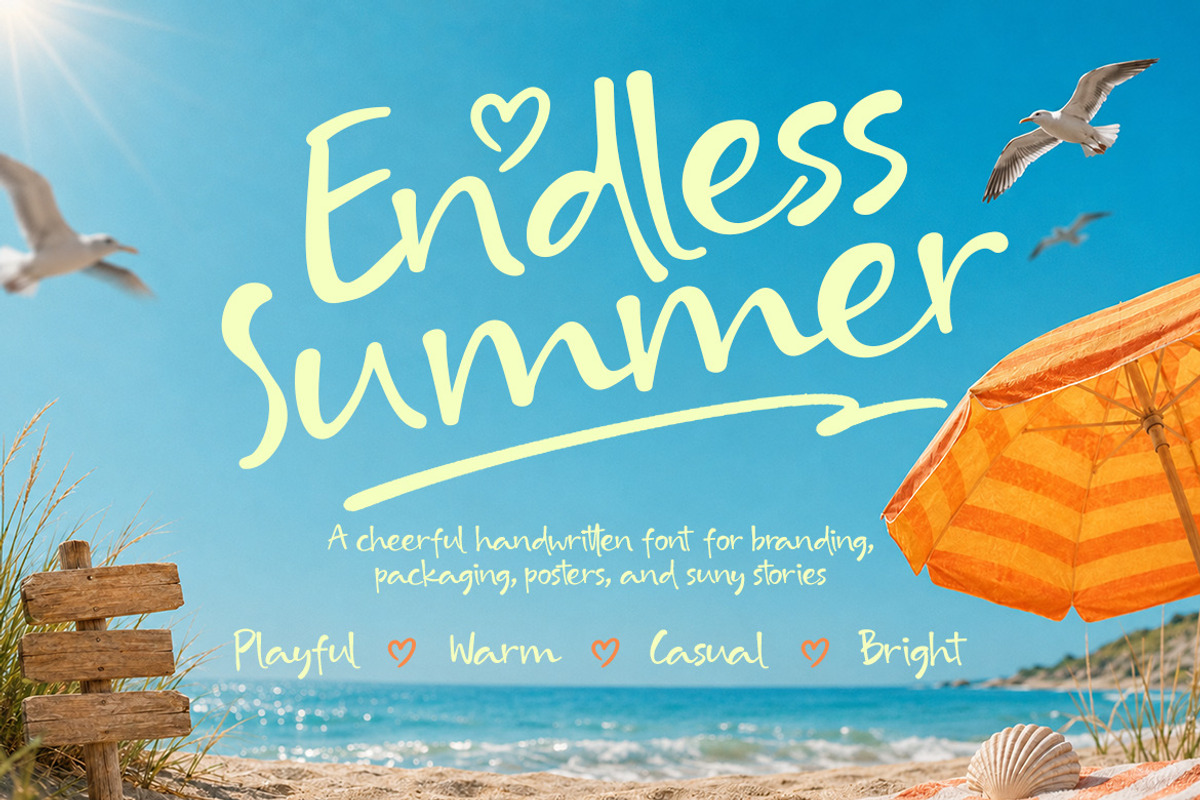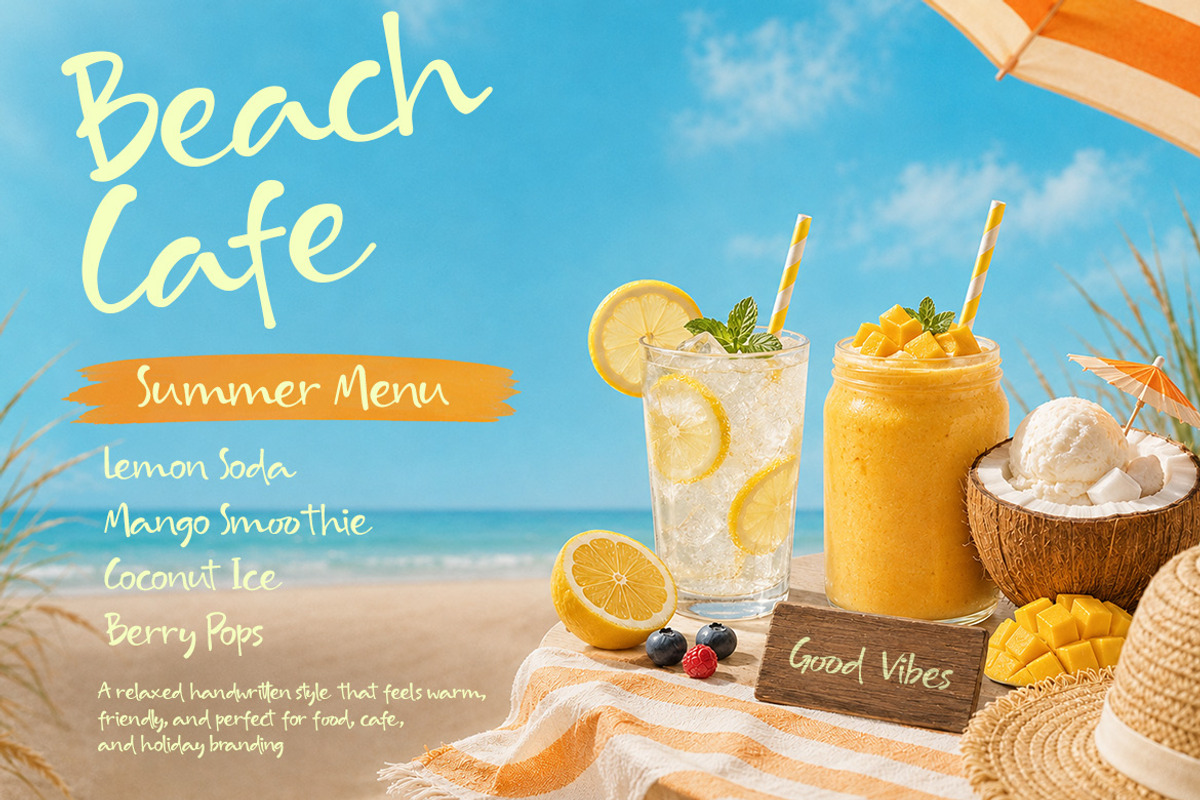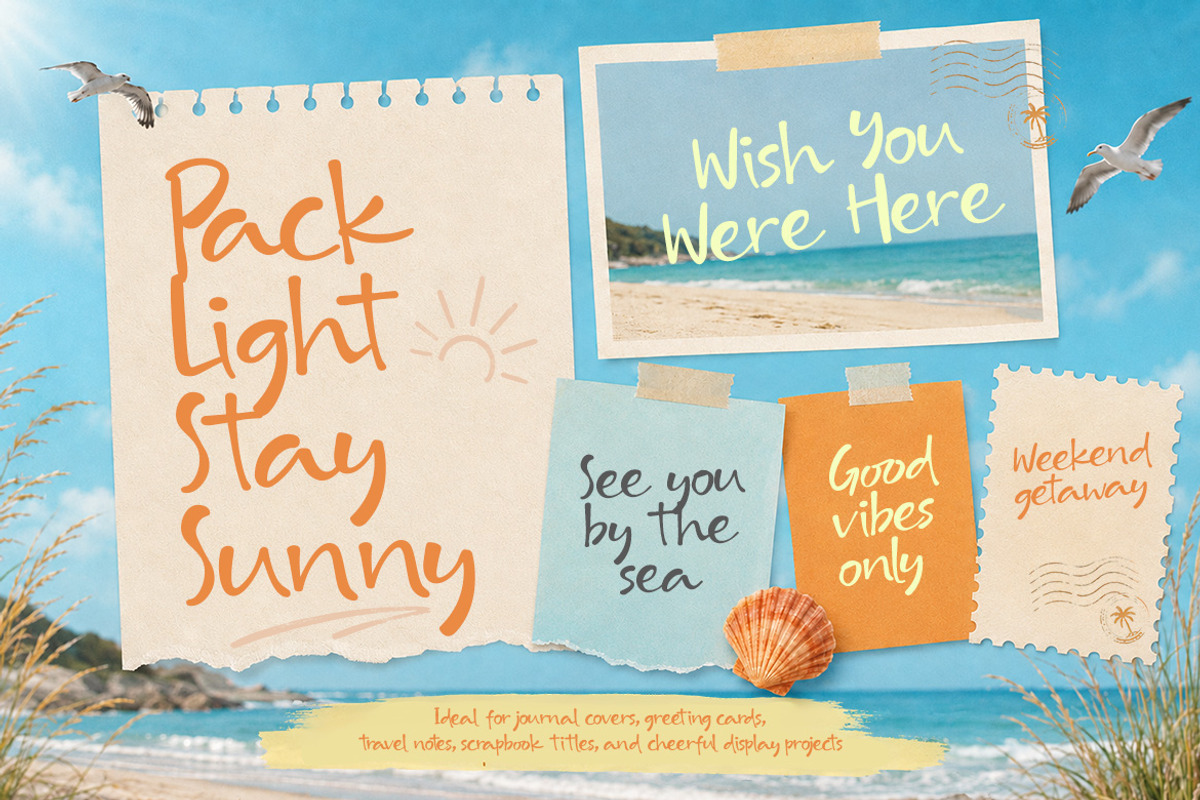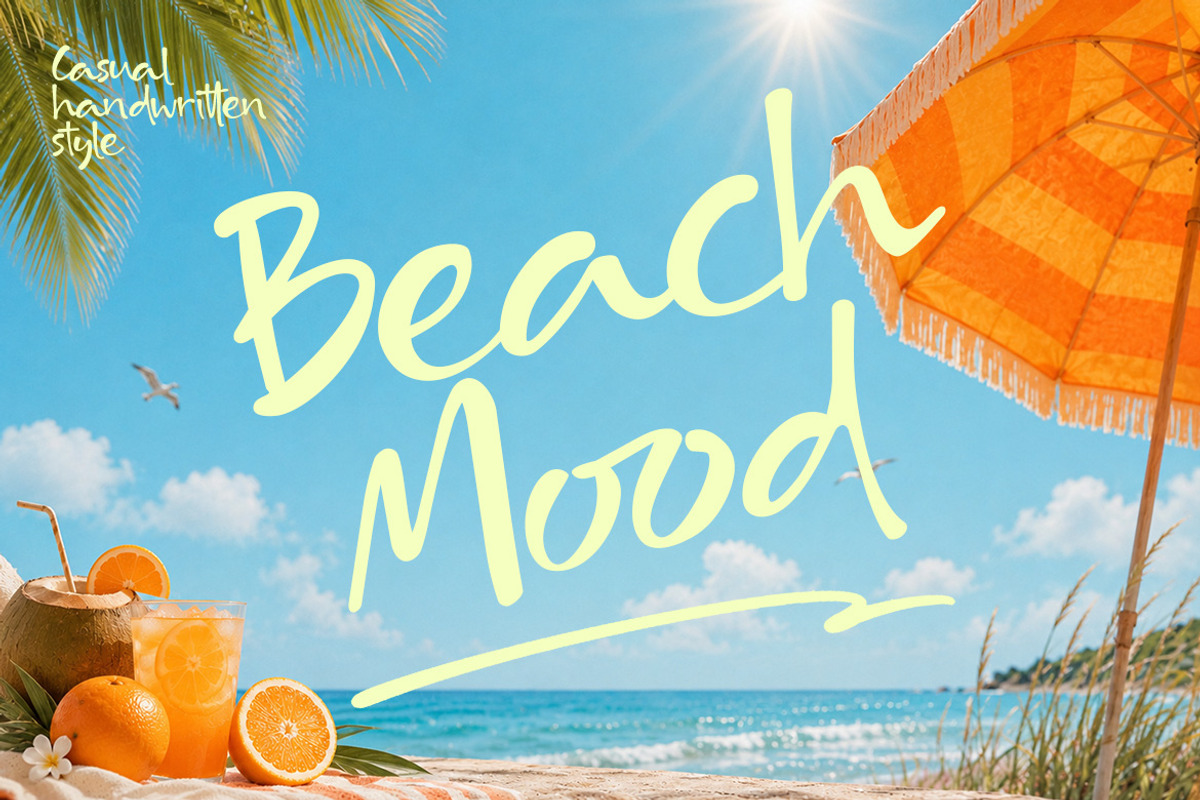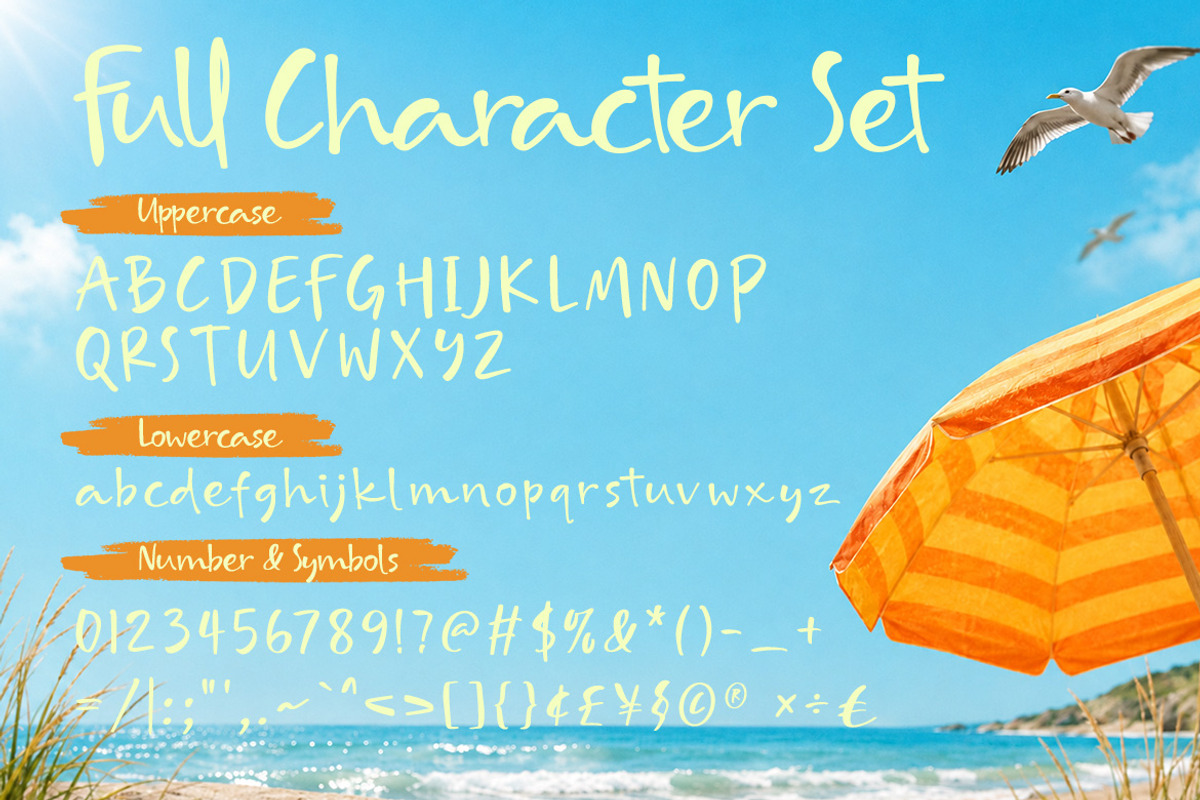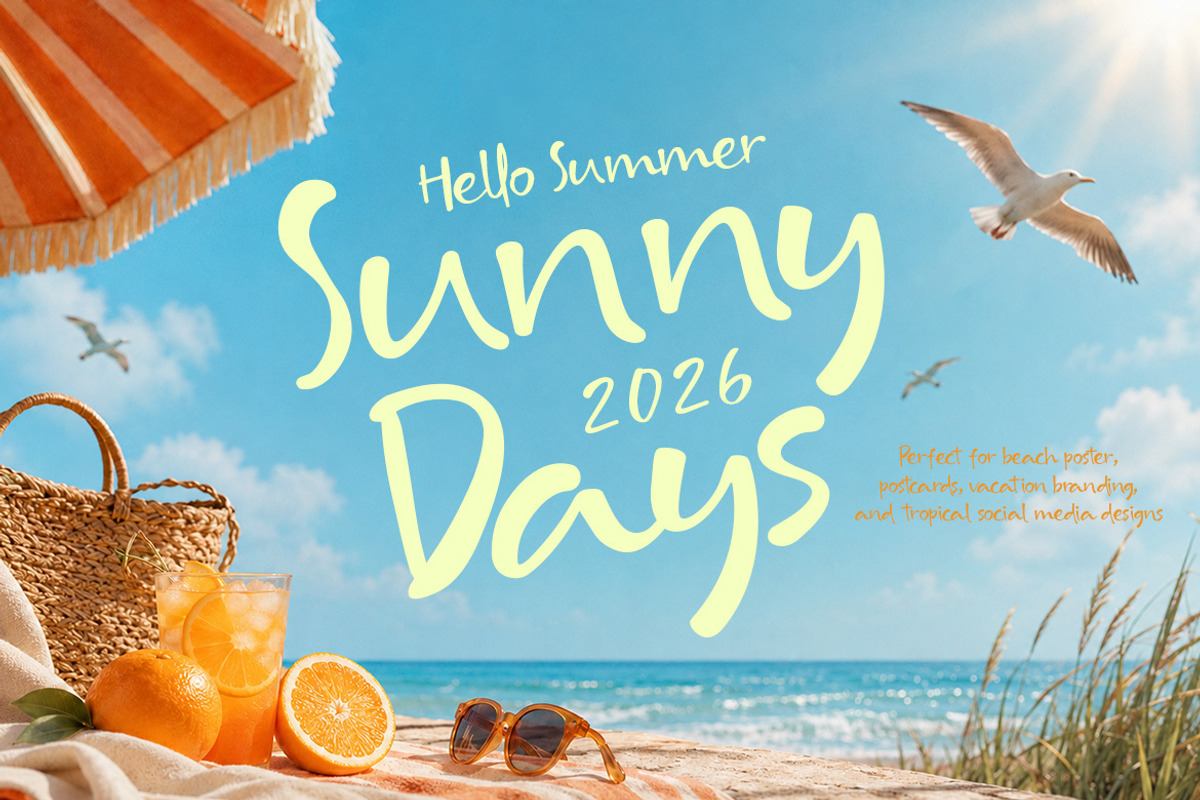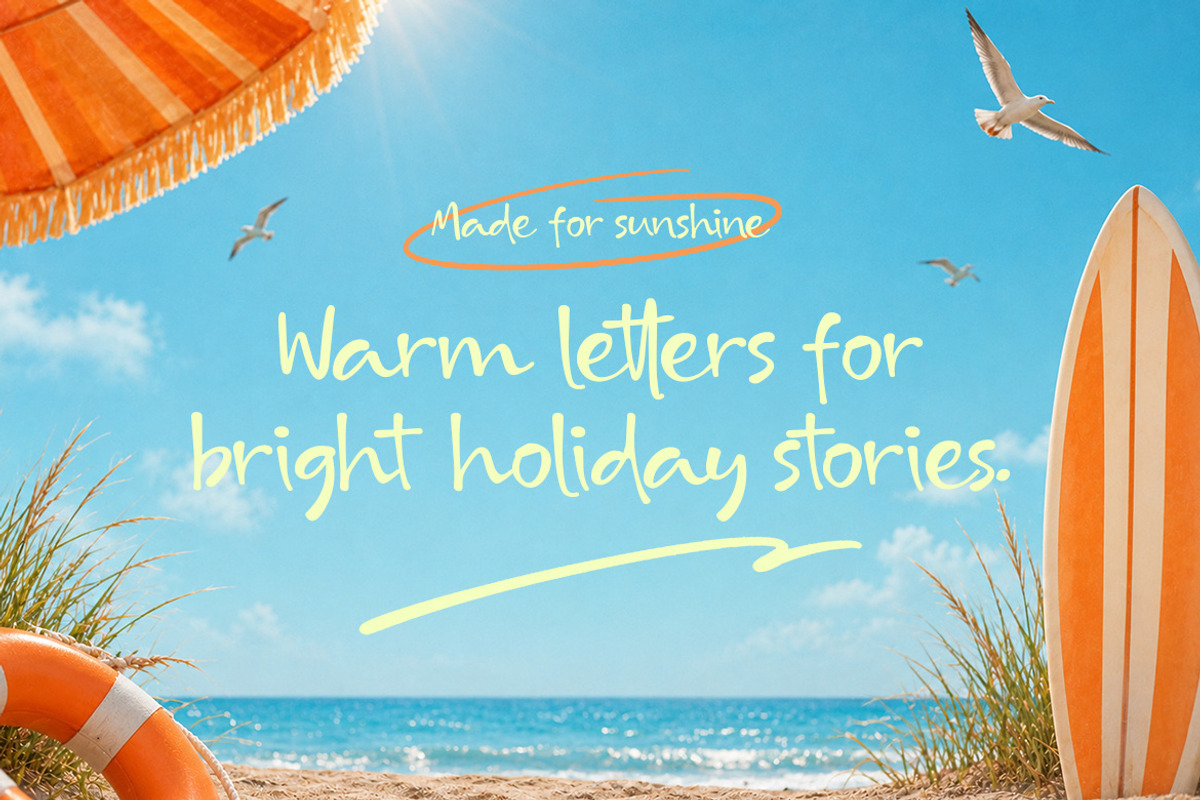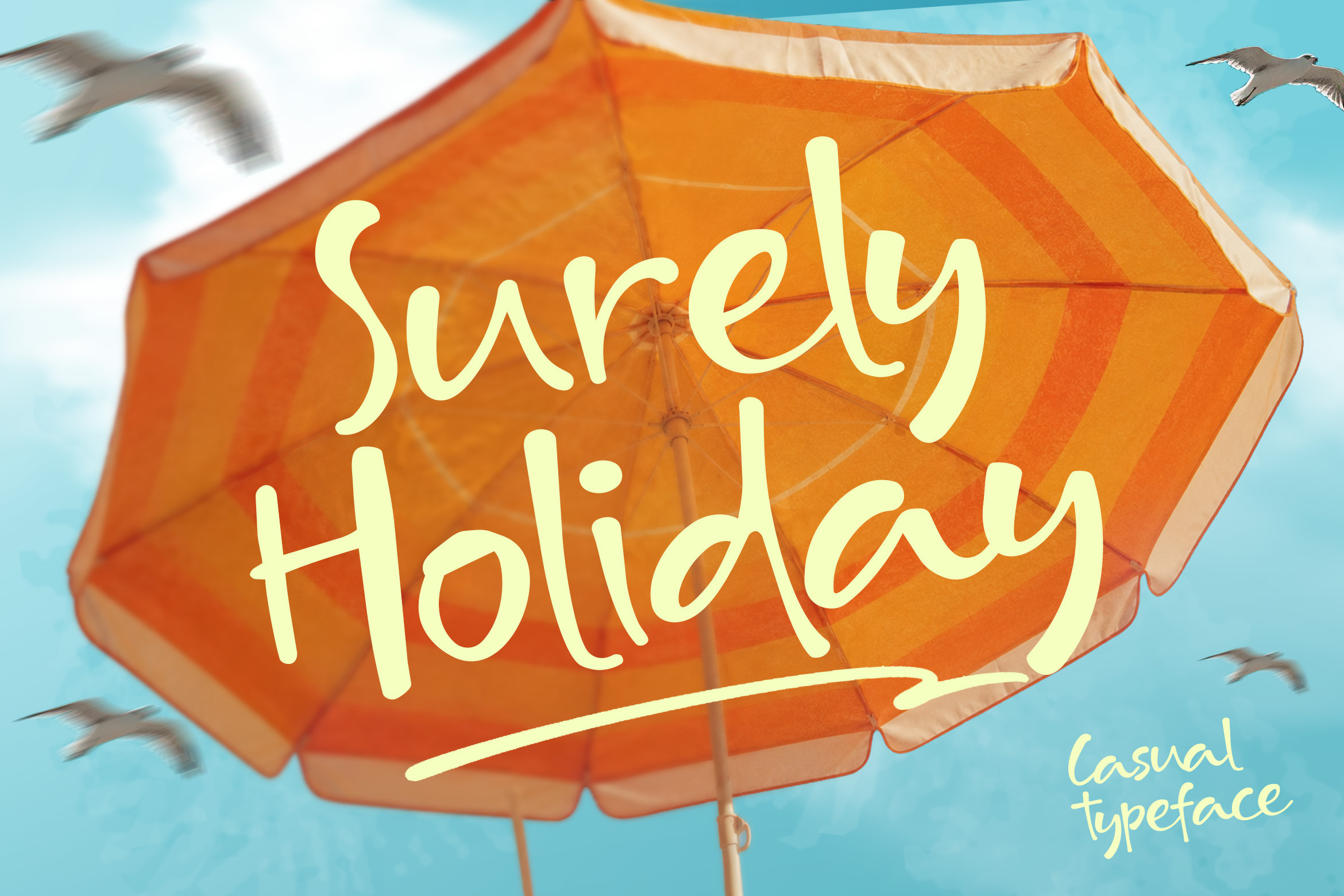
Surely Holiday - Casual Font
Surely Holiday is a casual handwritten display typeface that combines fluid hand-drawn letterforms with tall, expressive proportions, featuring smooth curves, rounded terminals, irregular character shapes, and a relaxed stroke rhythm that creates a warm and approachable visual presence. Its naturally playful construction gives designs an easygoing personality while remaining clear and versatile for commercial use. Designed for branding, logo design, posters, packaging, merchandise, and social media graphics, this typeface delivers a friendly handwritten tone that feels fresh, cheerful, organic, and confidently informal.
Smooth Kerning